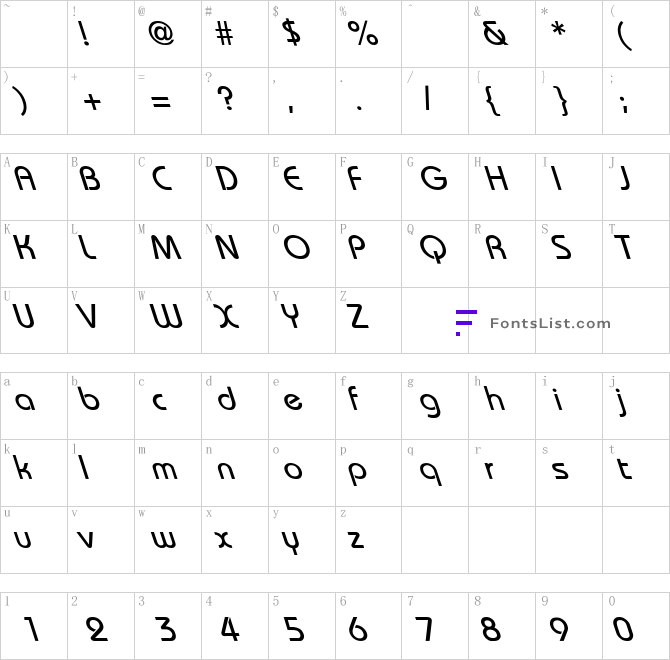
- Font Name:Bauhaus-Thin Lefty
Bauhaus-Thin-Lefty.ttf is a very beautiful artistic font, Bauhaus-Thin-Lefty.ttf is widely used in the design and printing of various books and pictures,Bauhaus-Thin-Lefty.ttf has a strong visual impact,Bauhaus-Thin-Lefty.ttf is a commonly used font in newspapers, magazines and books, and is used in posters, e-commerce Poster design, store design, logo design, font design and other fields.Bauhaus-Thin-Lefty.